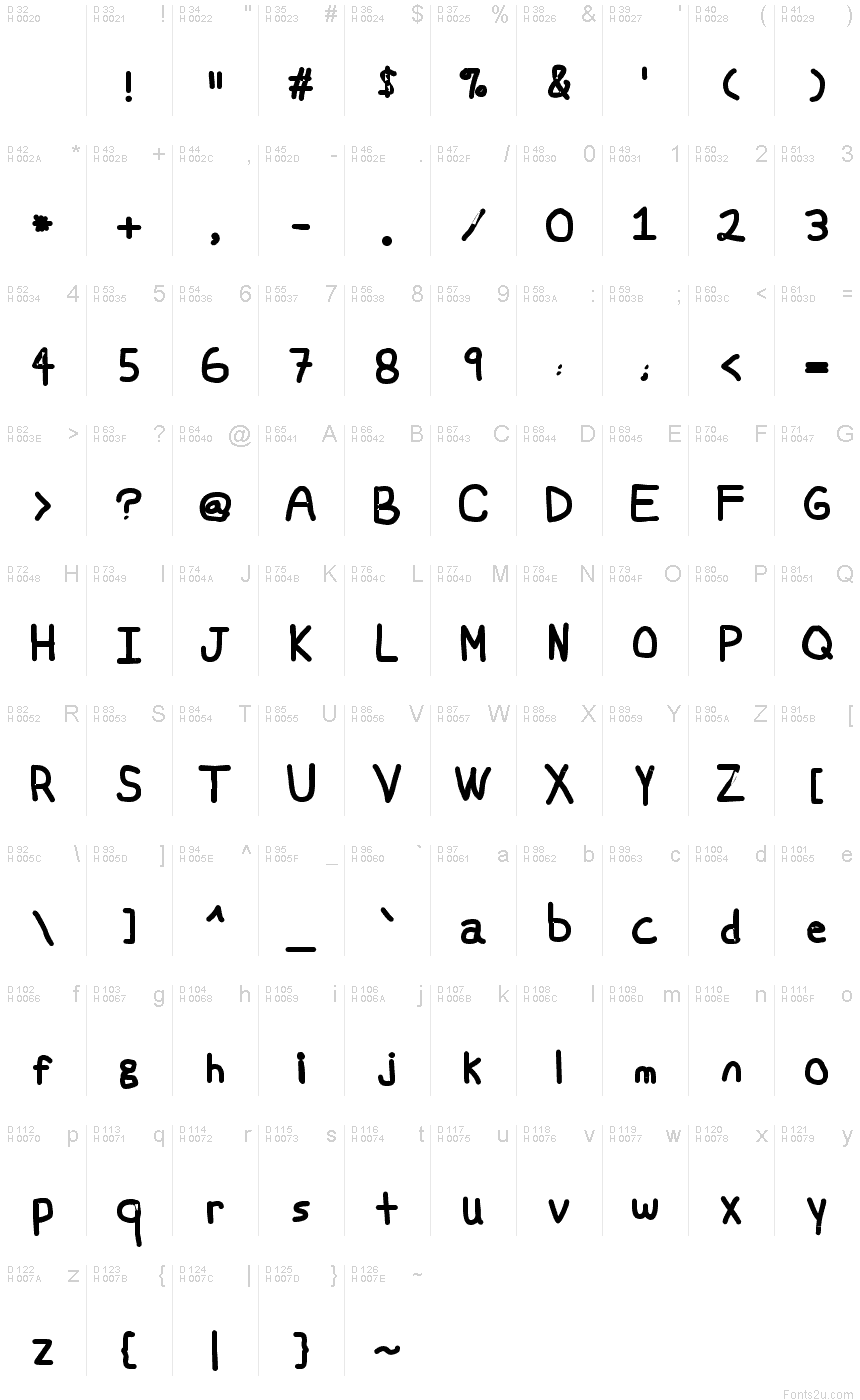
Swabby Bold by Brian Sullivan is a free cartoon display font with soft, hand-drawn strokes and a cheerfully uneven silhouette. Its broad curves, blunt ends, and loose proportions make the lettering look friendly and improvised rather than mechanically finished.
That playful construction can carry children's book covers and toy packaging, but it also fits casual cafe signs and event posters. The font is most convincing when a project needs lettering that resembles a quick, confident marker drawing.